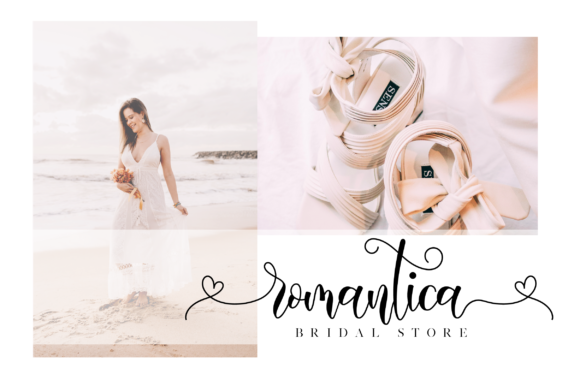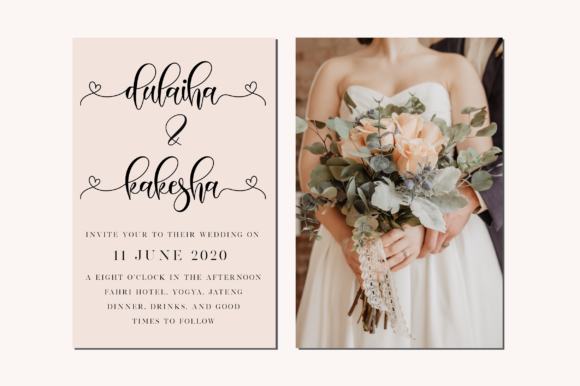
Haisley Font
db-ku.com - Script & Handwritten -- Haisley is an incredibly beautiful script font. It has a classy, elegant, and modern look which can be used for logos, branding, invitations, stationery, wedding designs, social media posts, and much more!